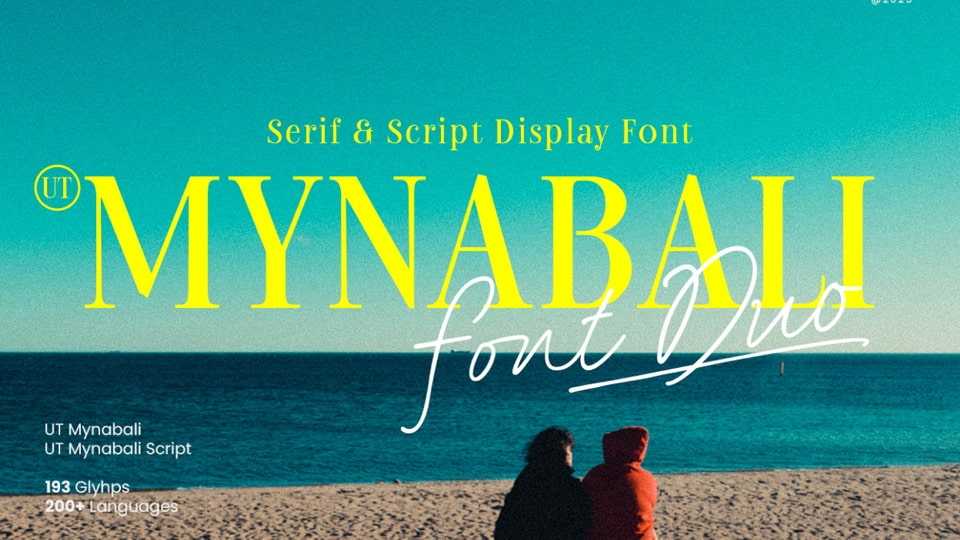
Download UT Mynabali font, a typeface that combines a refined serif with a fluid, expressive script, creating a perfect harmony of sophistication and warmth.
Designer: Universitype Foundry